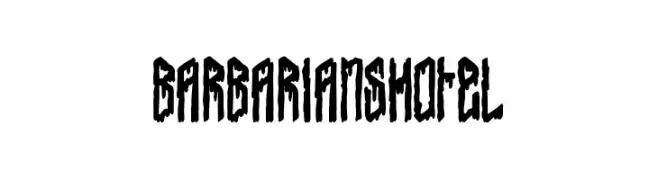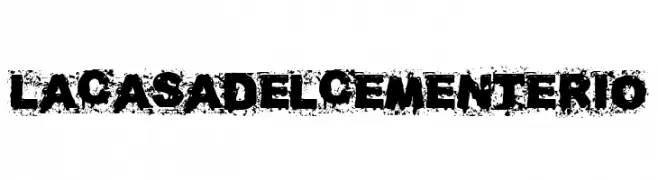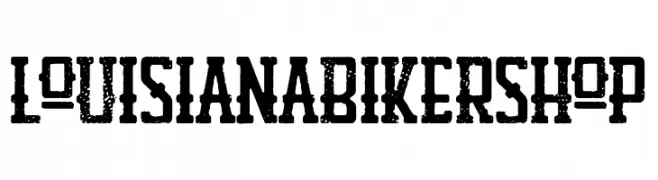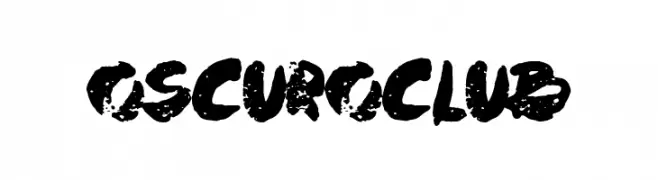
A bold, distressed font with a rugged, ancient appearance.
A bold, distressed font with a rugged, vintage appearance.
A bold, distressed font with a grunge, weathered appearance.
A bold, distressed font with a grungy, textured appearance.
A bold, fragmented font with a shattered glass effect.
A bold, distressed slab serif font with a vintage, rugged appearance.
A bold, distressed font with a rugged, grunge aesthetic.
A rugged, distressed font with jagged, uneven edges for a bold, energetic look.
A bold, distressed font with a textured, grunge appearance.
A bold, glossy, and playful font with a retro-modern style.